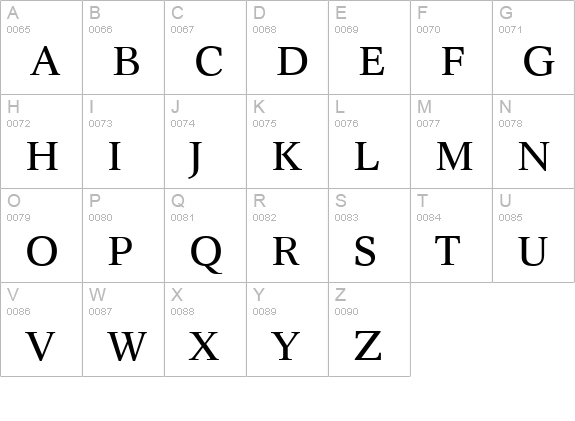
12 Concorde** Roman 05319 Font Details
Introducing the elegant and sophisticated 12 Concorde Roman 05319 font, a timeless typeface that exudes class and professionalism. With its clean lines and classic design, this font is perfect for a wide range of projects, from branding to editorial design. The 12 Concorde Roman 05319 font features a sleek and modern look that will elevate any text or design it is applied to. Whether you're working on a logo, a website, or a print publication, this font is sure to make a lasting impression. Best of all, the 12 Concorde Roman 05319 font is completely free to download at FontsMarket.com. This means that you can start using this beautiful typeface in your projects right away, without having to worry about any additional costs. Don't miss out on the opportunity to add this stunning font to your collection – download the 12 Concorde Roman 05319 font today and take your design work to the next level.